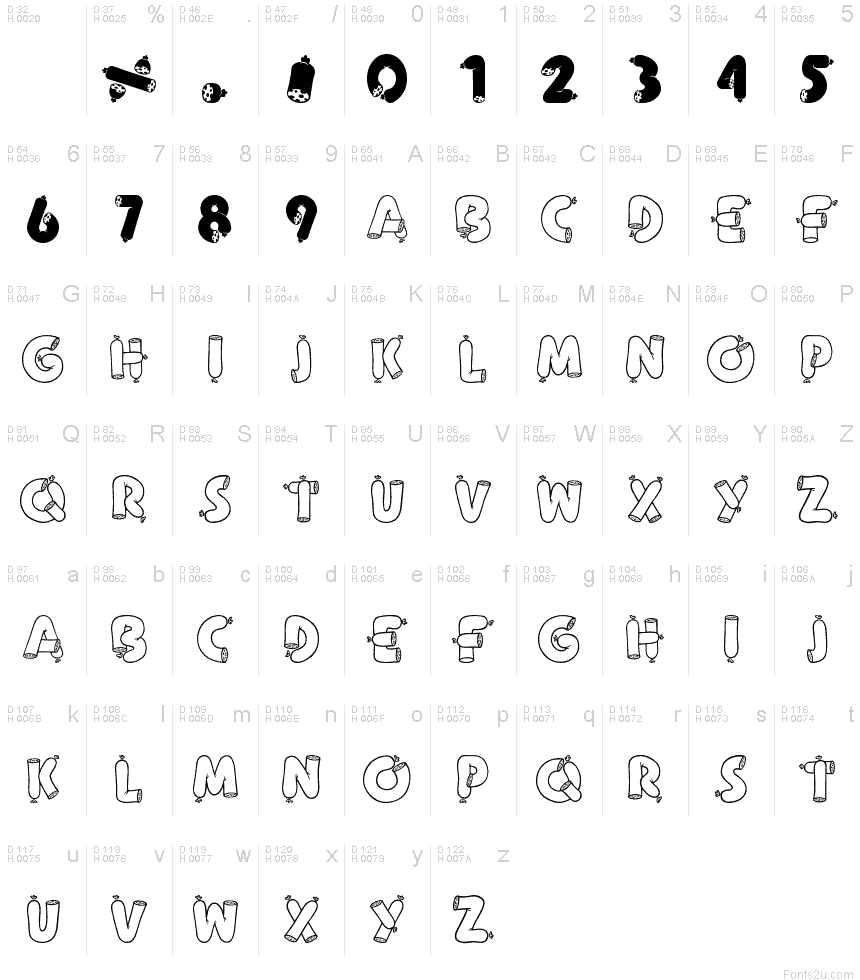
Alpha Sausage
Alpha Sausage font by Beeline-Fonted is a free cartoon display typeface that turns every word into a chain of plump, doodled sausages. Each letter looks hand-drawn and a little wobbly, with knotted ends and tiny details that feel straight out of a comic strip menu or goofy snack ad. The linework is light and airy, so even with all the quirky shapes it still reads clearly at larger sizes.
Using Alpha Sausage, you can instantly give food packaging, kids’ menus, quirky restaurant logos, food-truck branding, party invitations, and playful social graphics a cheeky, appetizing twist. This free font shines when it’s big and bold in headings; pair it with a clean, neutral sans serif for small text to keep things readable while the sausages steal the spotlight.